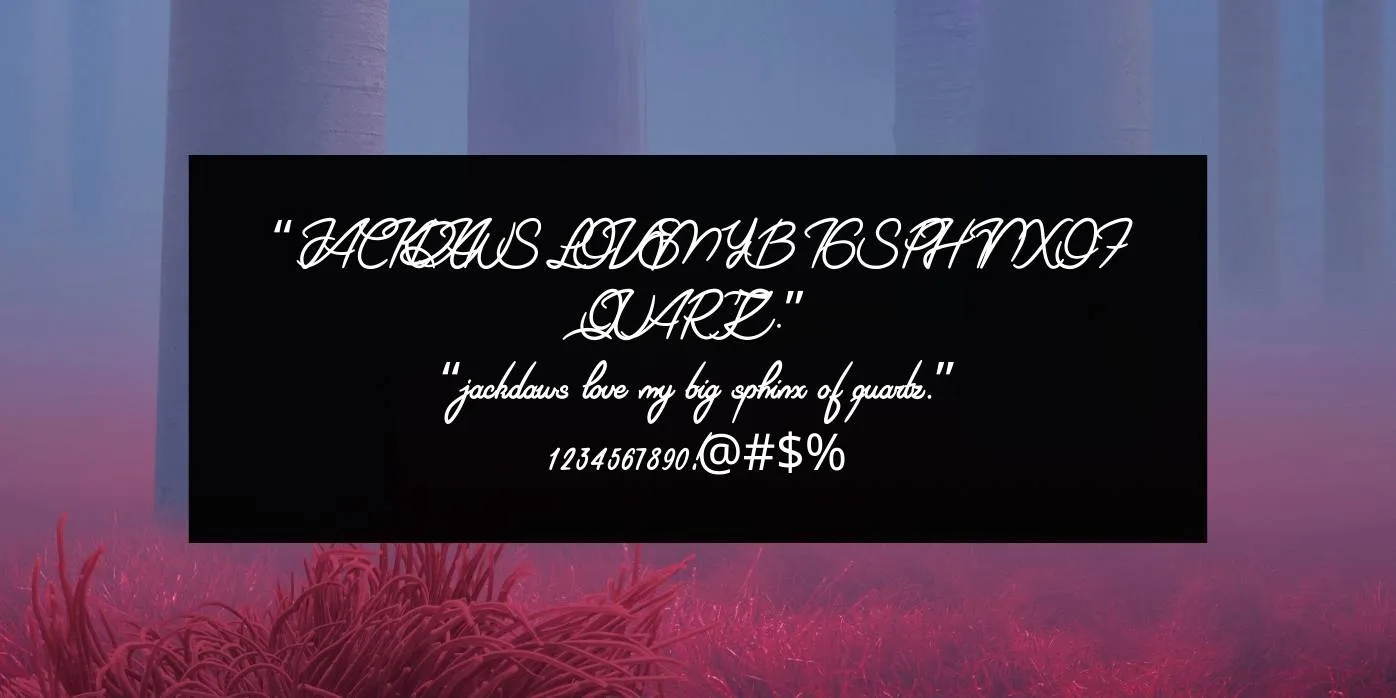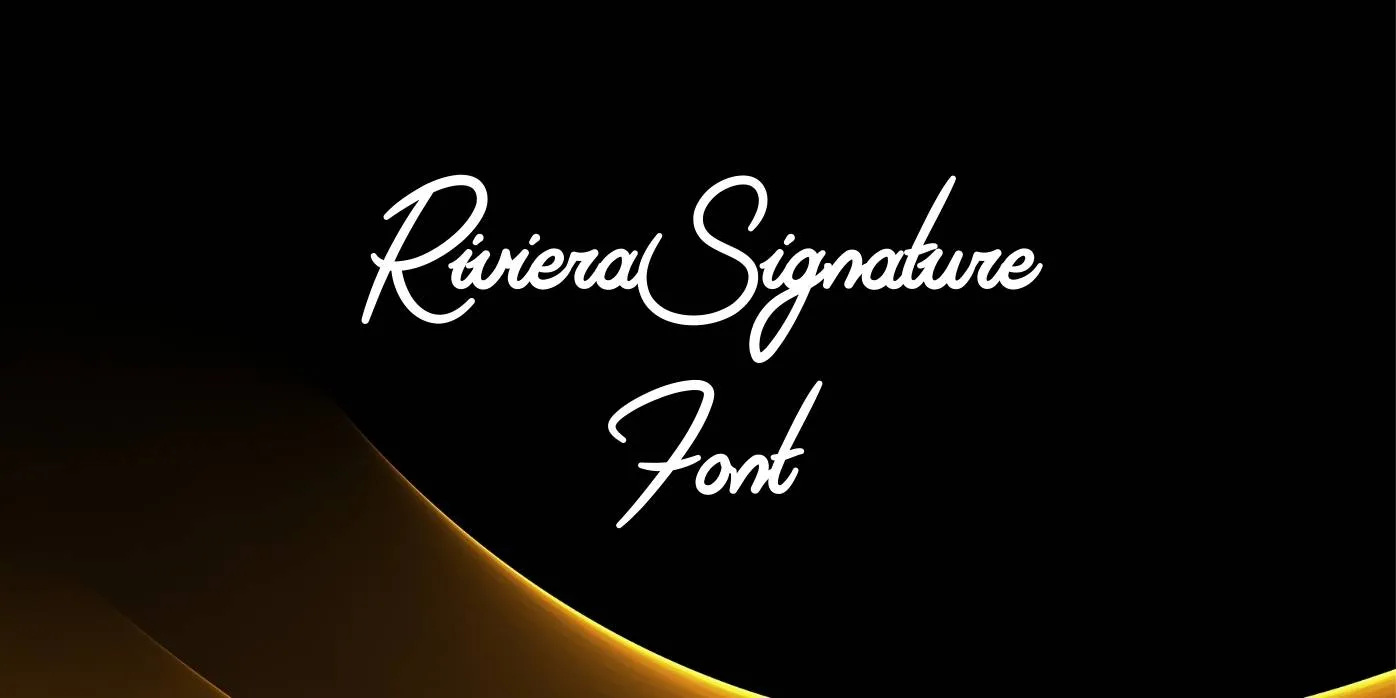
Riviera Signature Font
The Riviera Signature Font style may be an awesome choice to design your work. Although the typography is conventional, the essential components are great. Riviera Signature Text style is the idealize text style for all your fun plans. The text style subfamily is Signature Text style.
The textual style was planned by Bruno Pierini and is free for individual use. The textual style fashion may change depending on the letters chosen. A few textual styles don’t acknowledge extraordinary characters or were created for a one-off activity. gruppo font¬†is a font that looks quite similar to this font style design.
You can use the Riviera Signature Text style to form curiously plans, covers, shop and store names, and logos. Also, the Riviera Signature font Textual style can generate branding ventures, houseware plans, item bundling, or basically as a la mode content overlay on any foundation picture. To assess the typeface, in this area there’s a see in which we select 31 uncommon characters or highlights, 26 letters of the letter set in upper and lower case, and the numbering from 10. The letters will be the same after being introduced in your working framework, either for seeing or for printing.